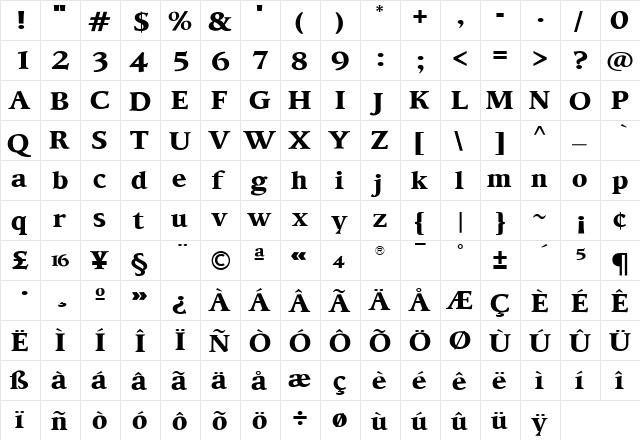
TFHabitatExpanded Bold
| Foundry | TFHabitat Expanded-Bold,v Ship . Glyphs,dataCopr. - -Treacyfaces,Inc |
| Year | 1986 |
Design Context for TFHabitatExpanded Typeface
TFHabitatExpanded offers clean, dependable letterforms without strong stylistic allegiance, making it a practical choice for designers who need flexibility. Its bold stroke weight gives it real presence on the page.